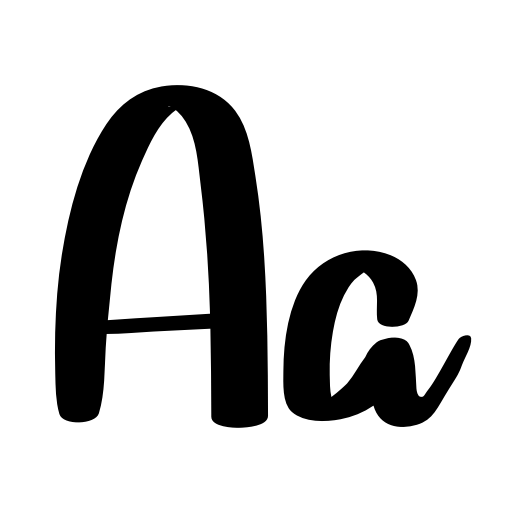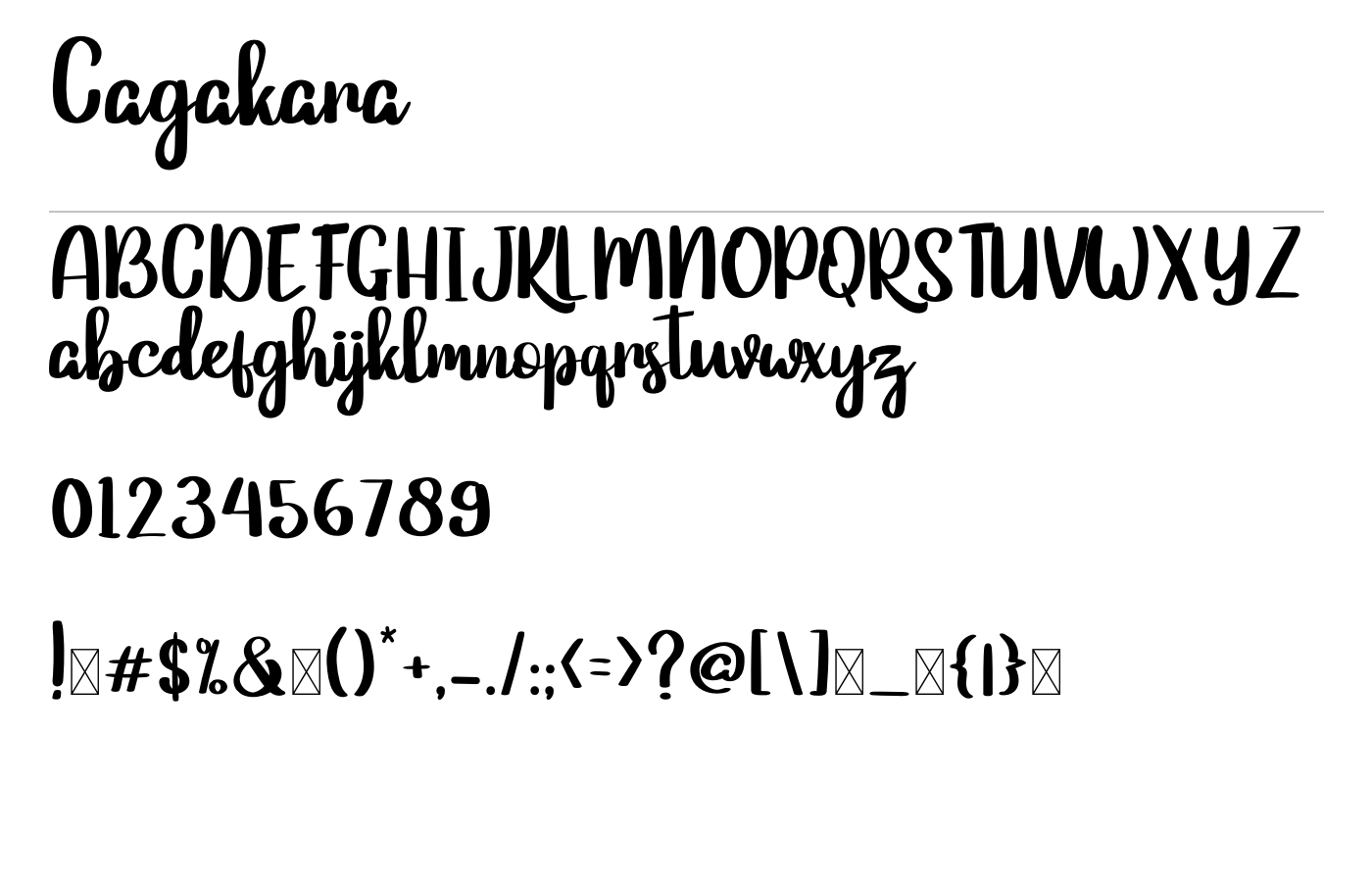
Cagakara is a playful and casual script font with a friendly, hand-drawn feel. Its bold, rounded letterforms and lively letter connections make it ideal for creative and informal designs such as greeting cards, social media graphics, and packaging for fun, youthful brands. This font’s warm personality shines in headlines and branding where a personal, approachable touch is desired.
Cagakara Font